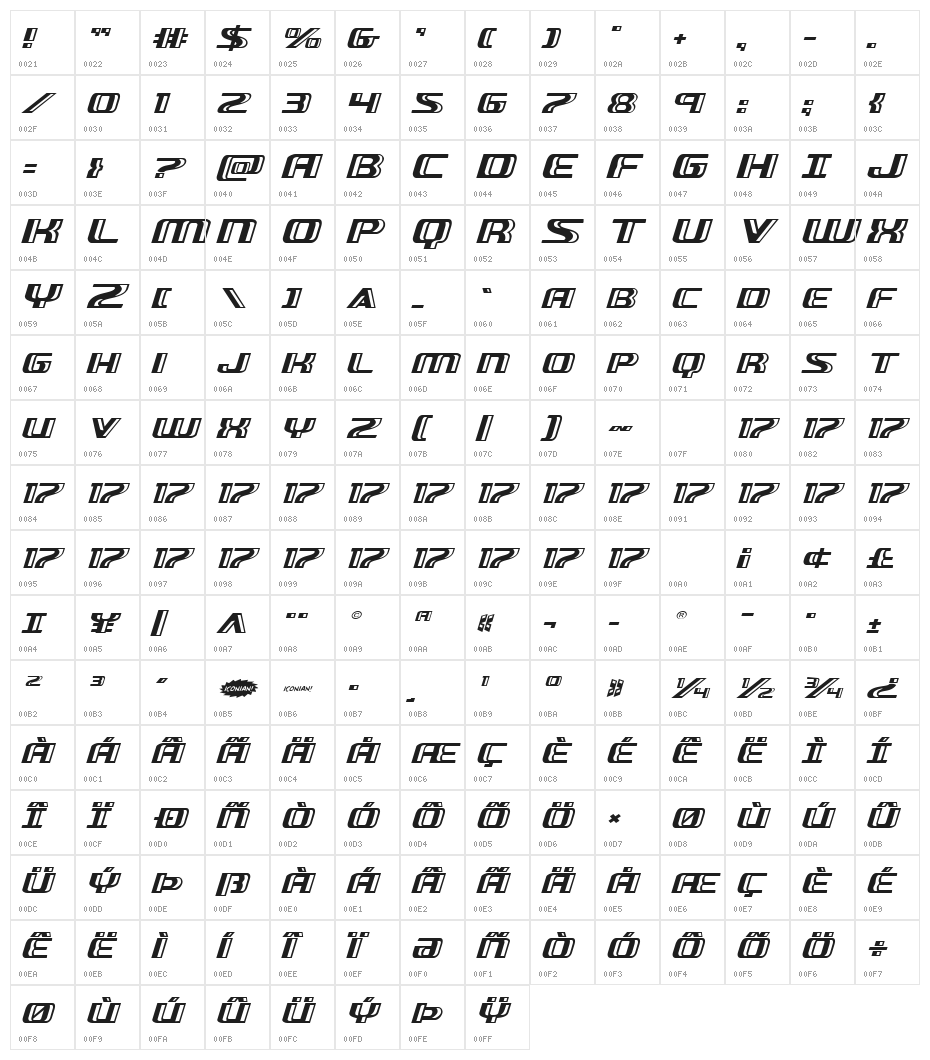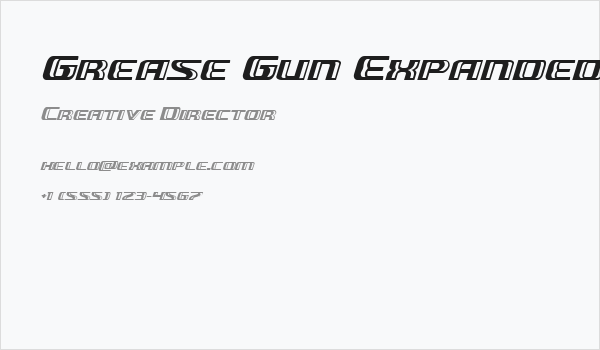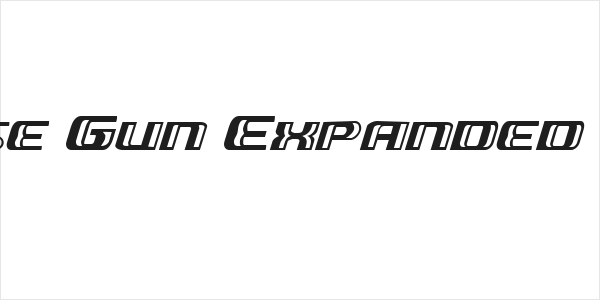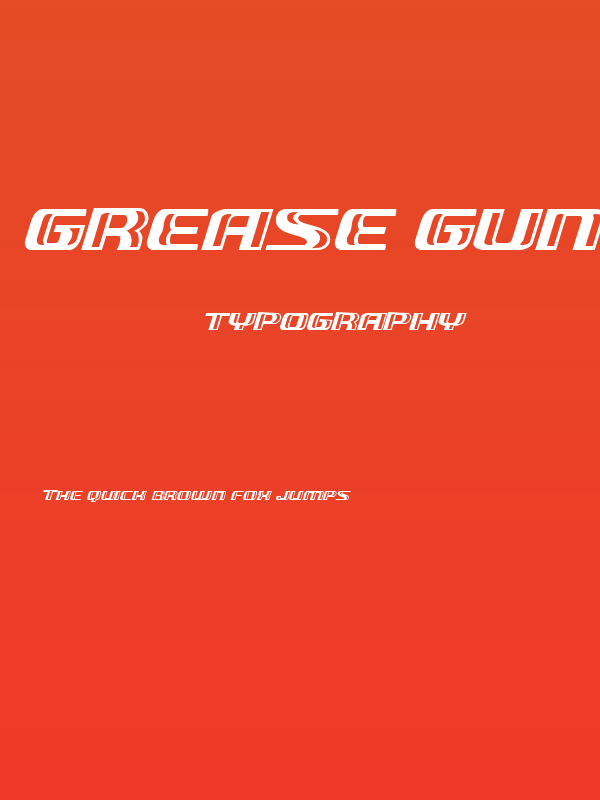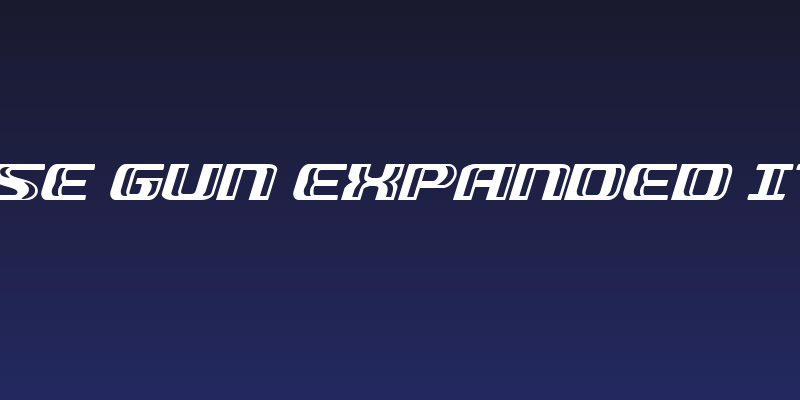
Grease Gun Expanded Italic Font
Grease Gun Expanded Italic Description
This font exhibits a bold, italicized style with an expanded width, giving it a dynamic and modern appearance. The characters are designed with a strong, angular structure, featuring sharp edges and a slight slant that enhances its italic nature. The uppercase and lowercase letters maintain a consistent style, with the uppercase letters being particularly prominent and impactful. The numbers and special characters follow the same stylistic cues, ensuring uniformity across all glyphs. The font's expanded width allows for increased readability, making it suitable for attention-grabbing headlines and titles.
Proposed ProjectsIdeal for projects requiring a bold statement, such as branding, advertising, posters, and sports-related designs.